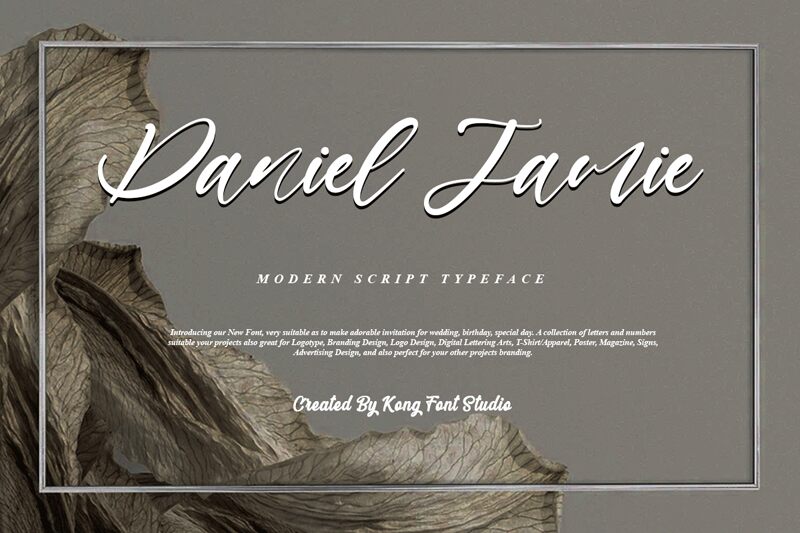
Daniel Jamie
Introducing Daniel Jamie - a modern script font designed by Kong Font. Its light weight gives a unique touch to any project - perfect for creating stylish invitations, high-end logos, or eye-catching headlines.